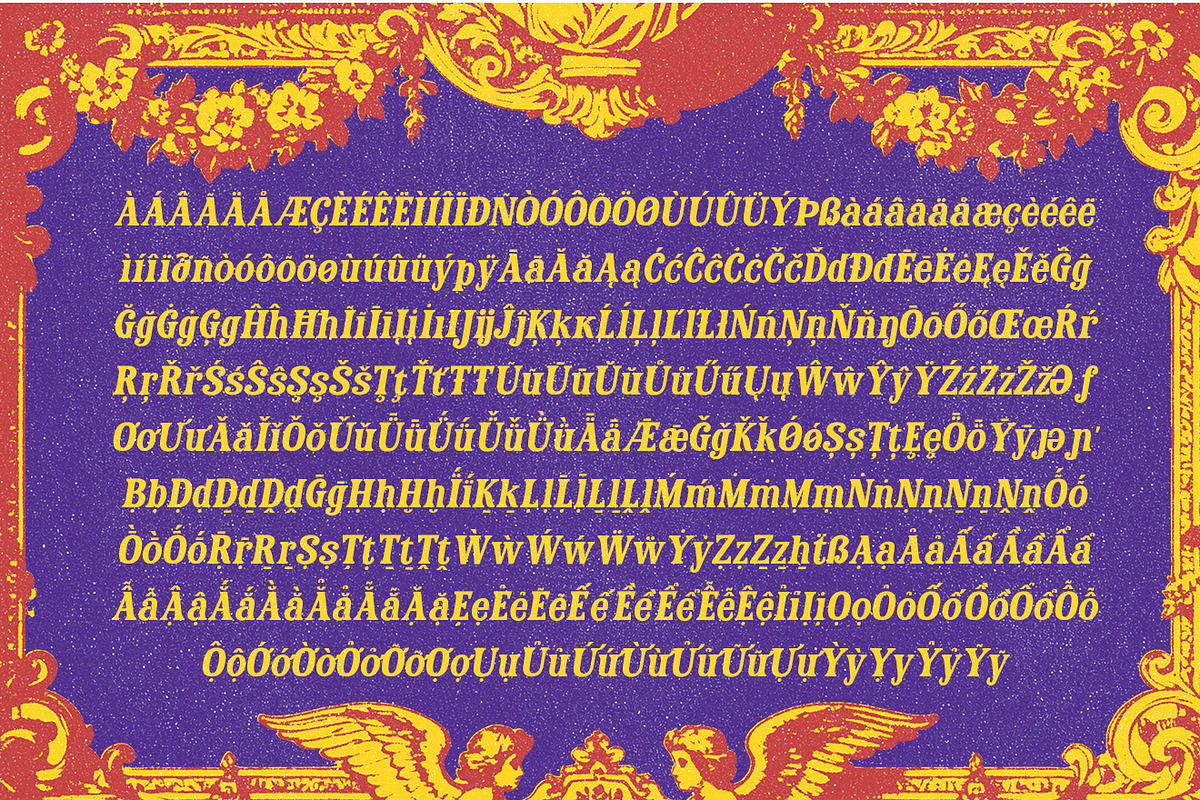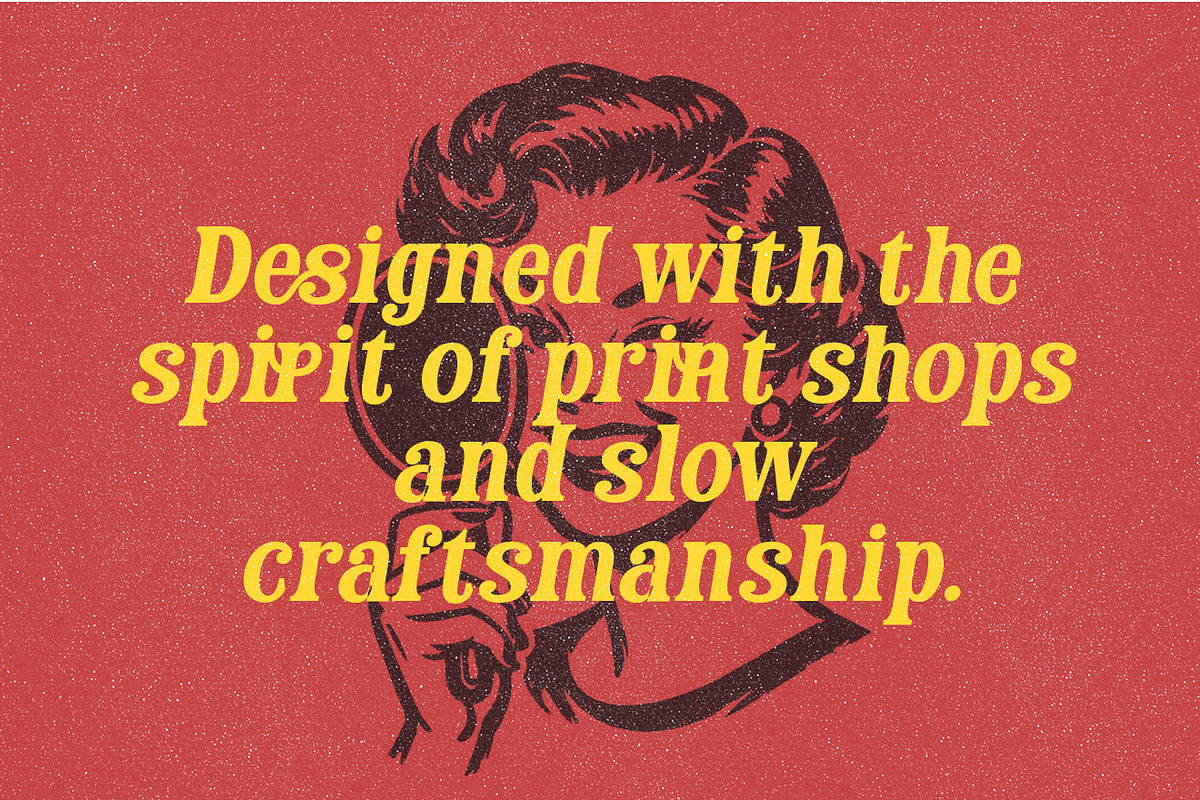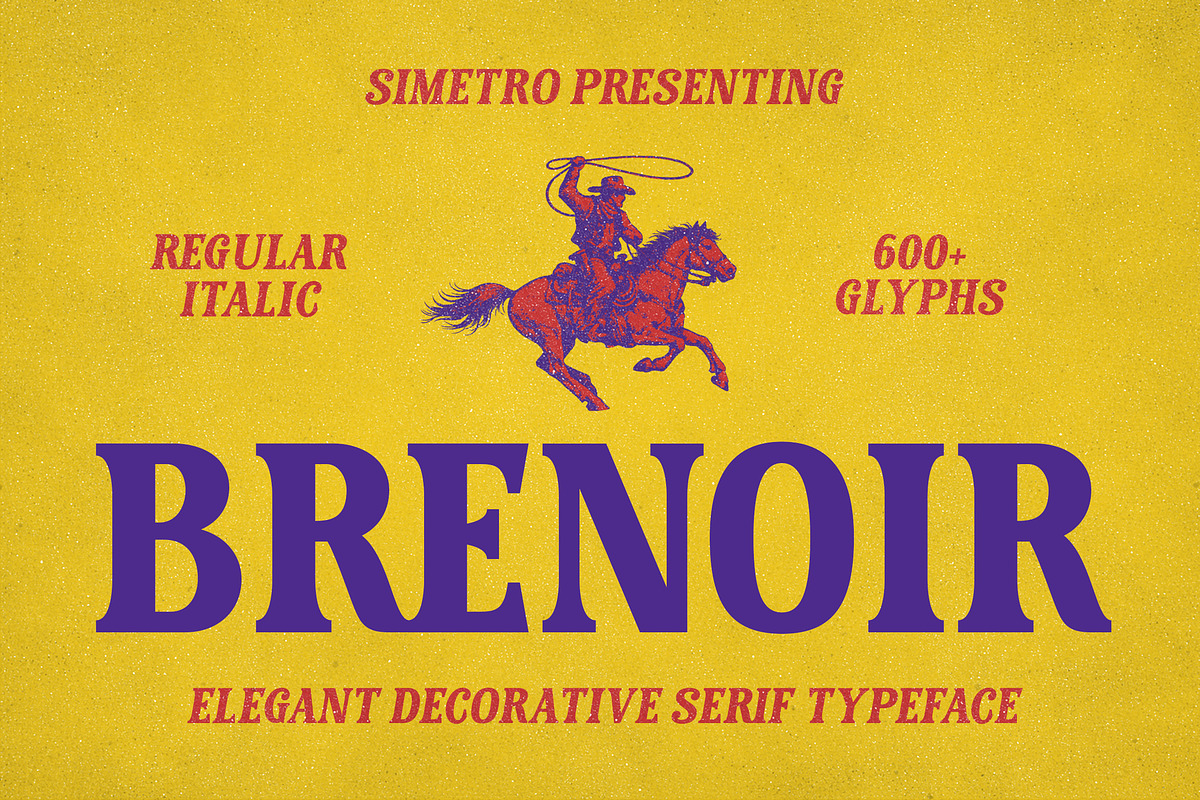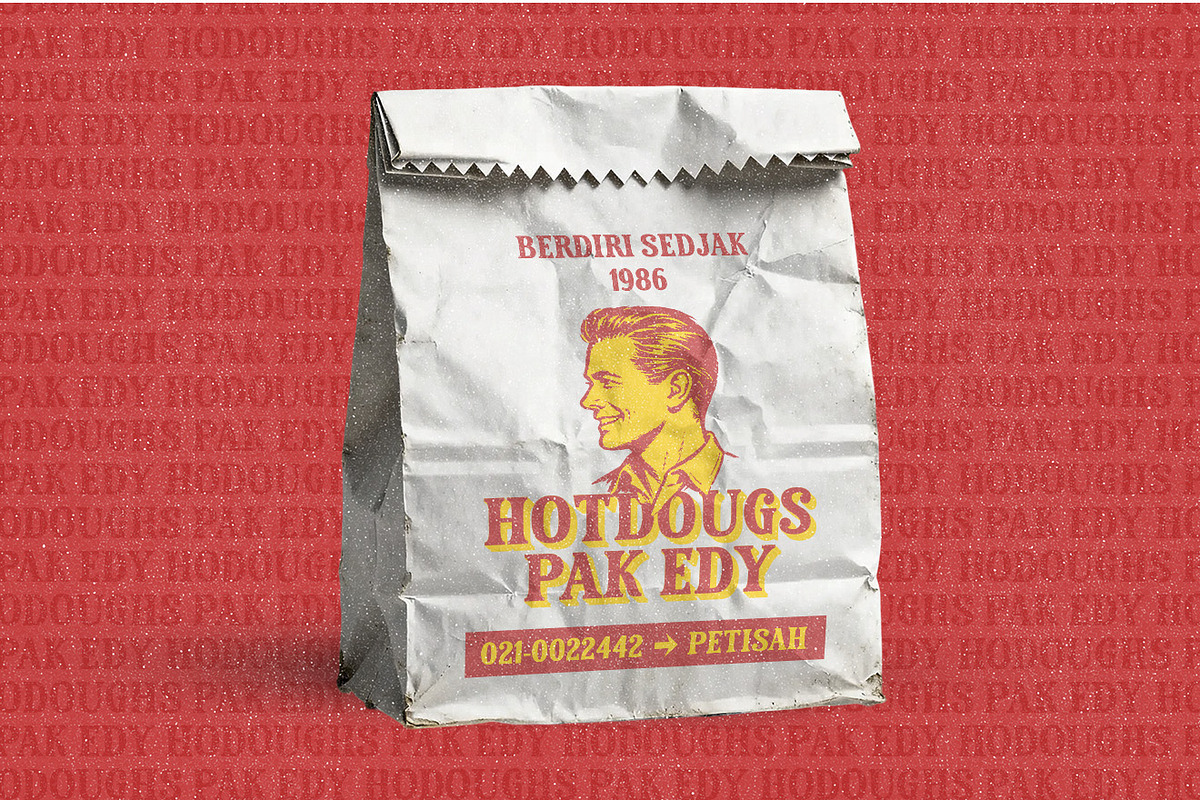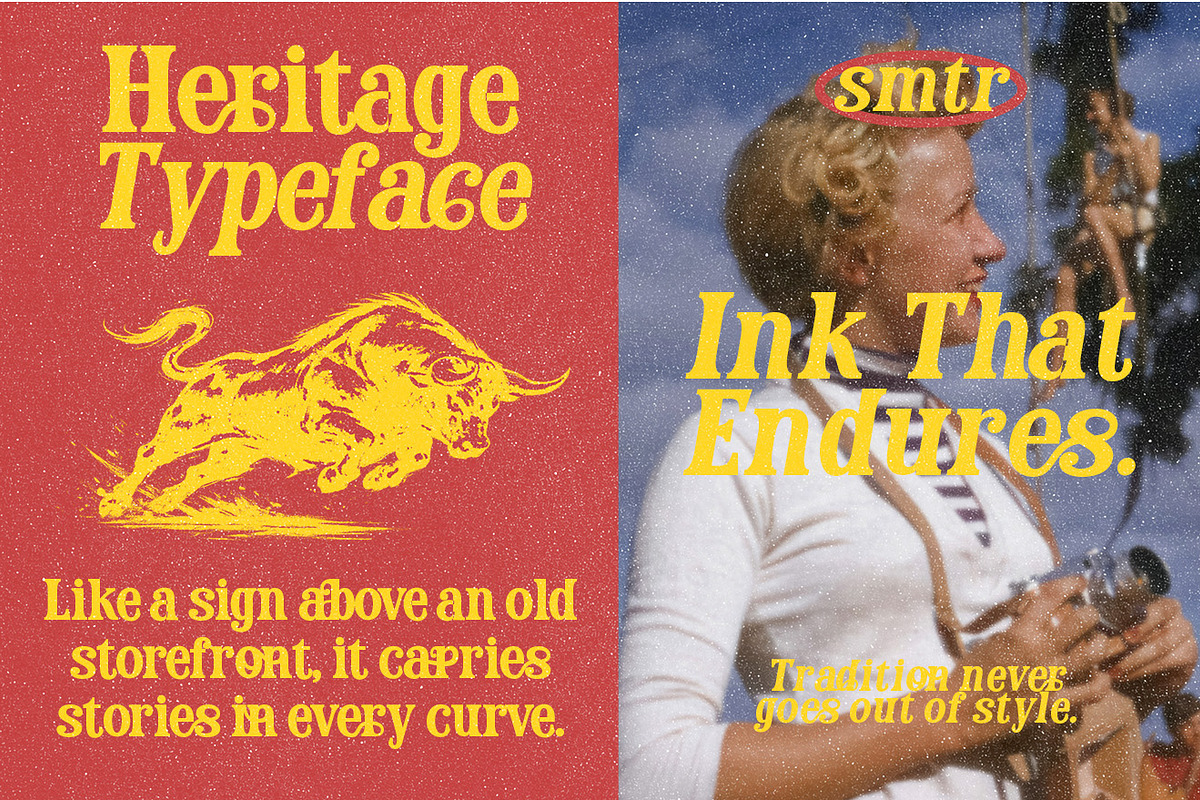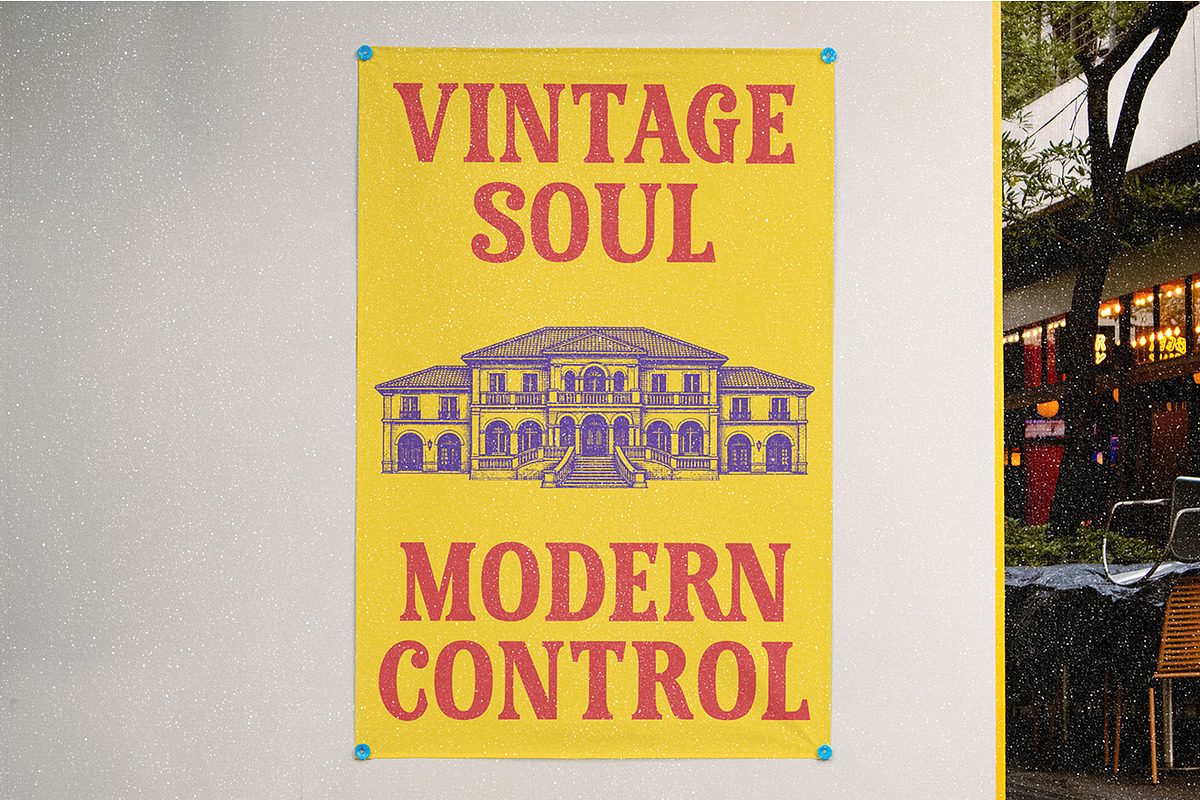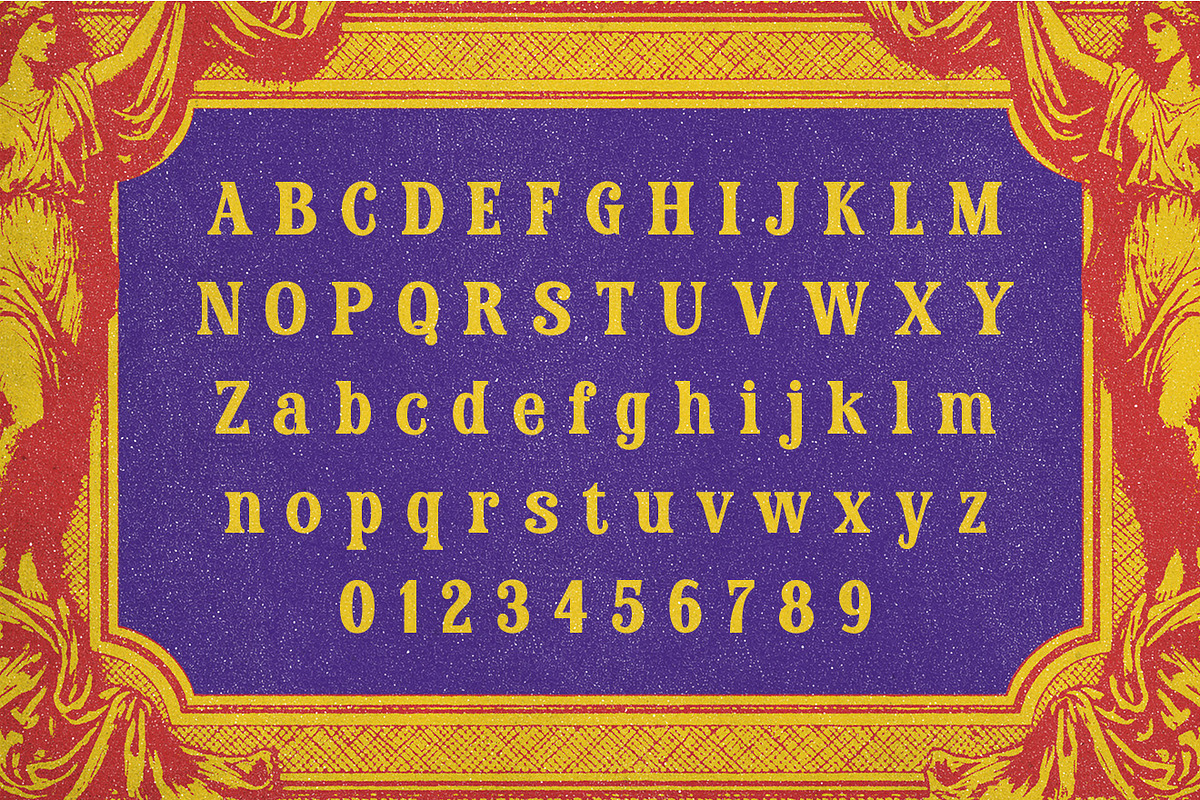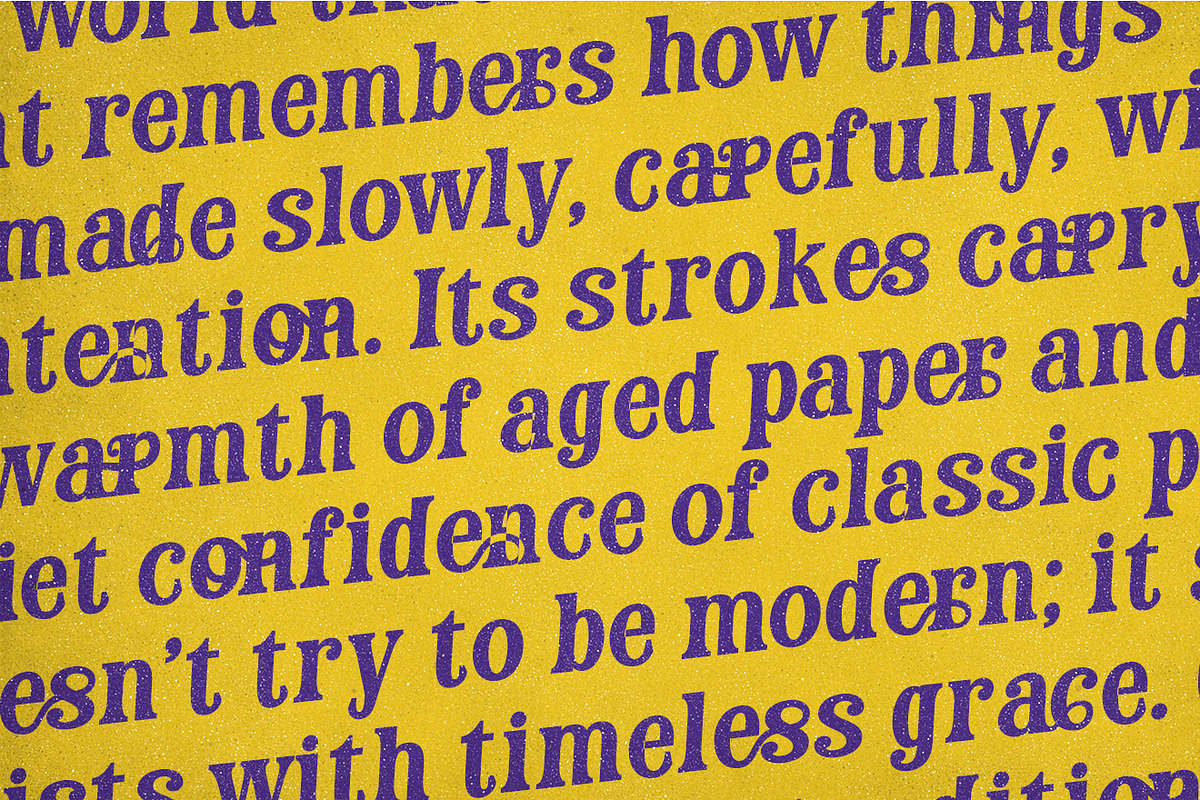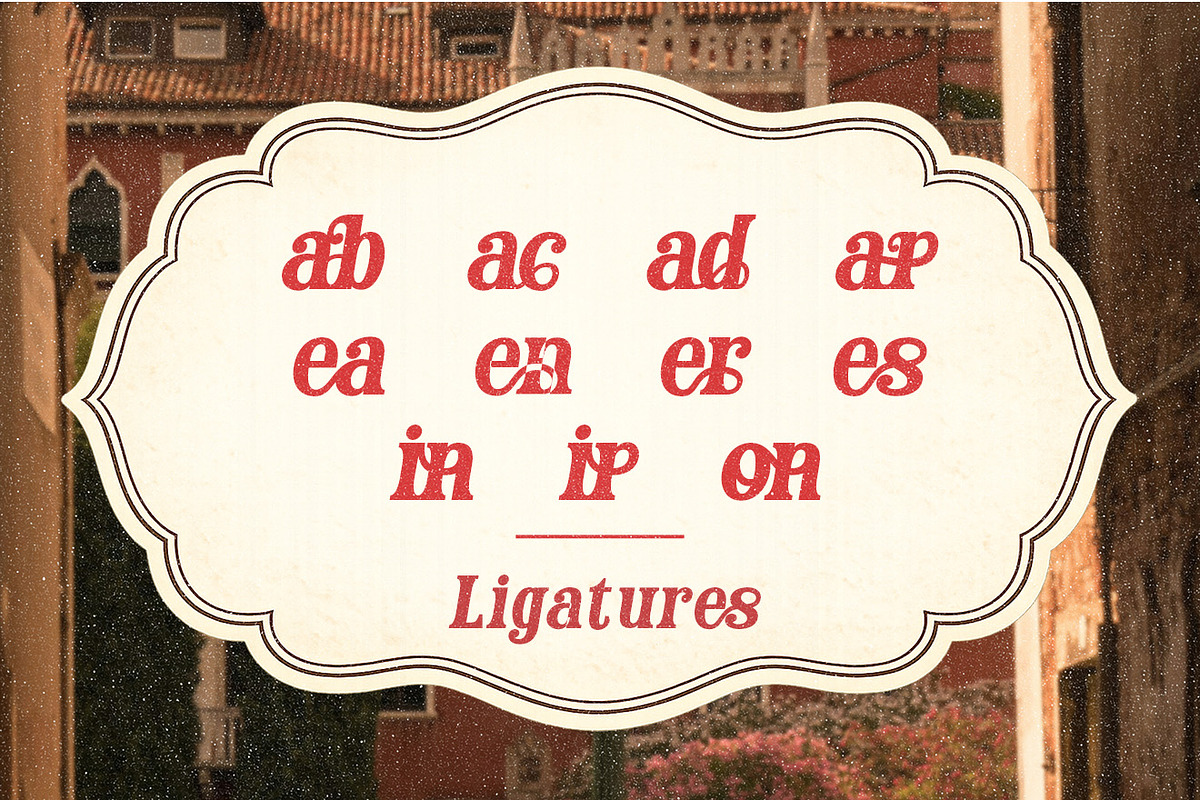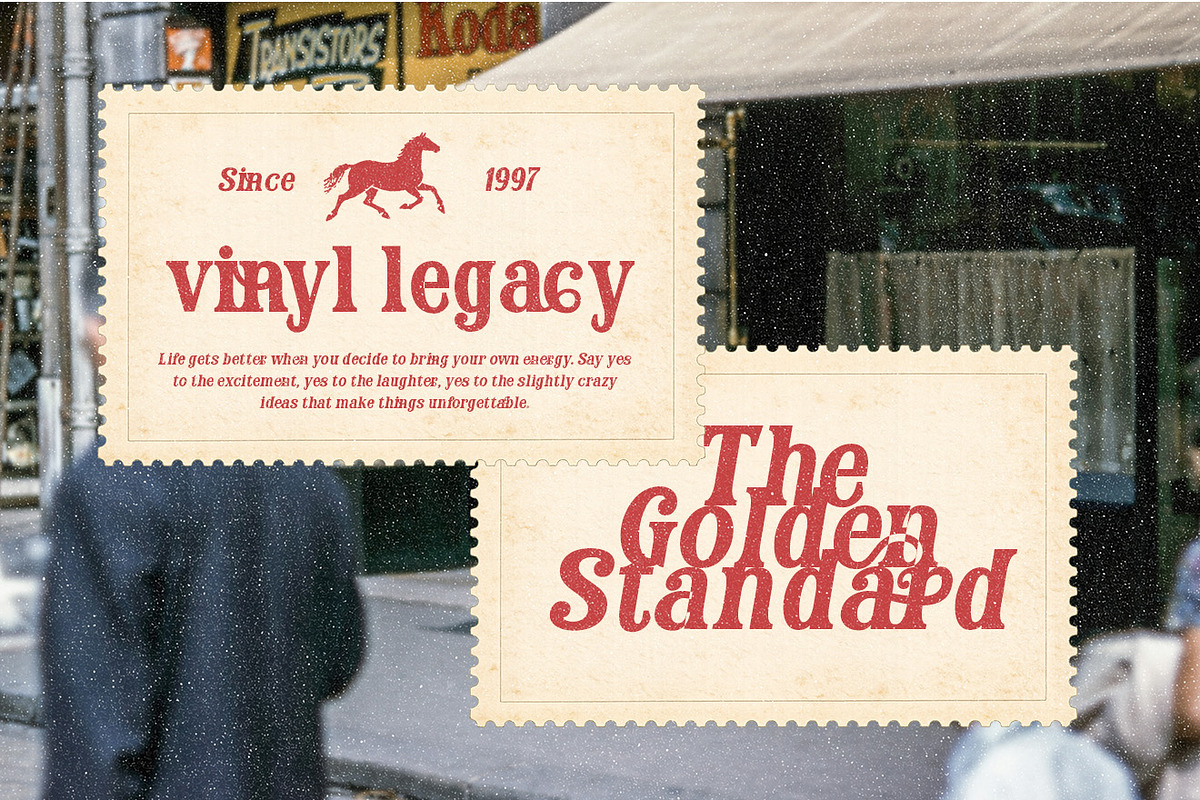
Brenoir - Elegant Decorative Serif
Brenoir is an elegant decorative serif typeface with flowing curves, refined contrast, and expressive details. Designed to blend classic serif elegance with ornamental flair, this font delivers a sophisticated yet artistic personality that stands out in premium design projects.
Supporting a wide range of Latin languages, Brenoir is suitable for international use across branding, editorial, and display applications. The typeface includes stylistic alternates (ss01 and ss02) and carefully crafted ligatures, allowing designers to create more dynamic, custom, and expressive typographic compositions.
Brenoir performs beautifully in logos, headlines, posters, invitations, packaging, fashion branding, and editorial layouts. Its decorative forms and smooth rhythm make it ideal for projects that require elegance, character, and a timeless visual appeal.